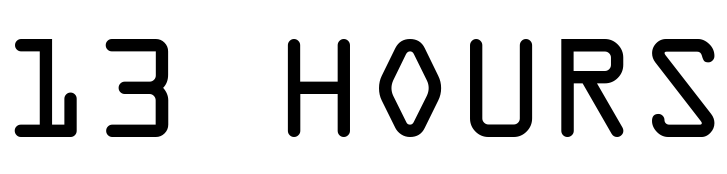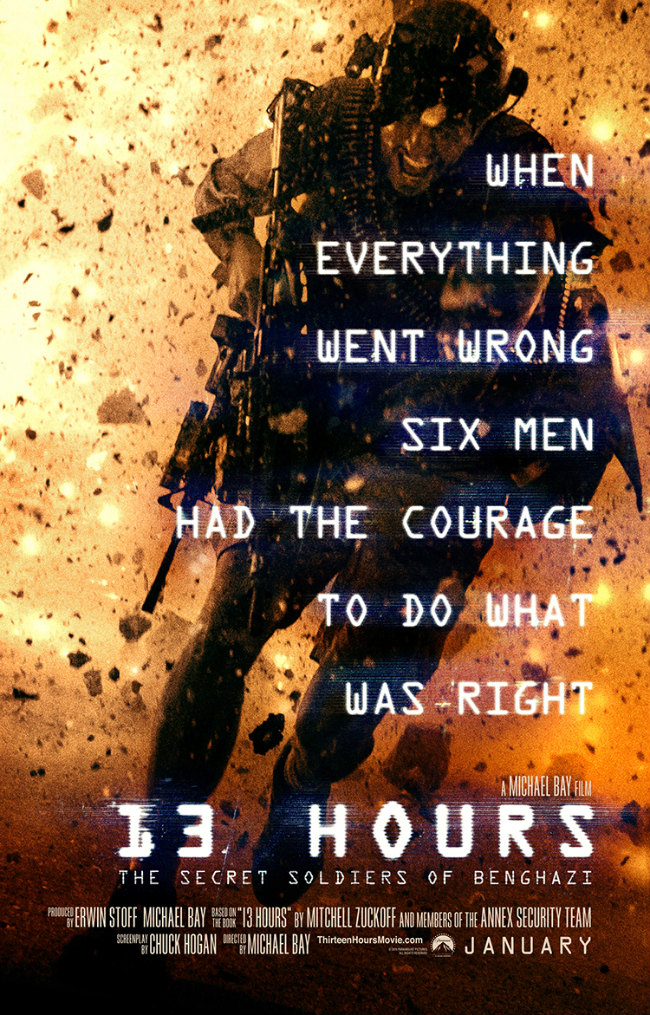
13 Hours (film) Font
Action13 Hours: The Secret Soldiers of Benghazi is a 2016 action thriller film directed by Michael Bay, depicting the true story of a group of CIA security contractors who fought to defend the American diplomatic compound in Benghazi, Libya, during a terrorist attack in 2012.
The film title on the poster of "13 Hours" features the OCR-A font, created by American Type Founders in 1968. This mono-spaced typeface was designed for machine readability, although it may present a slightly greater challenge for human readers.